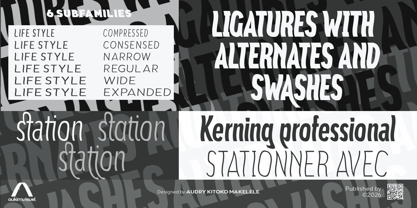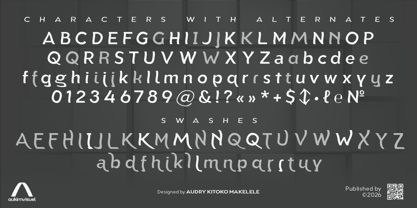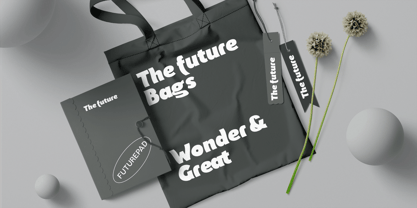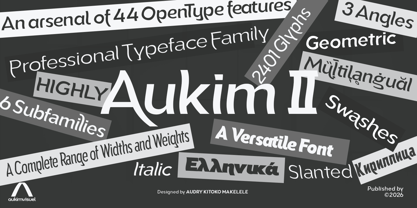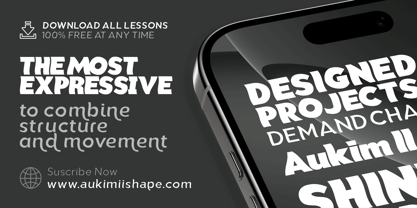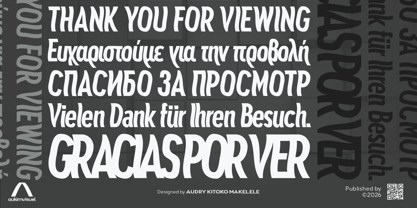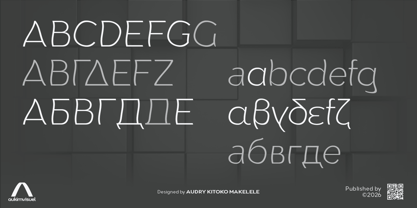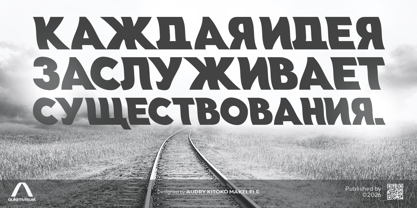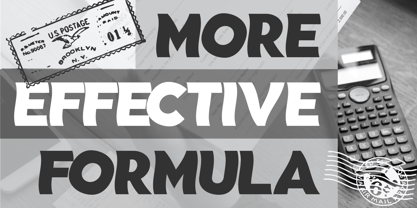
Aukim II Shape
by AukimVisuel
The Aukim II Shape Font Family was designed by Audry Makelele and published by AukimVisuel. Aukim II Shape contains 234 styles and family package options. More about this family
Aukim II Shape is the most expressive and kinetic variation of the Aukim II family. Designed for designers seeking a typeface capable of conveying movement, tension, and a strong visual presence, this version transforms the family’s stable geometry into a living form. Each letter appears to be captured in a moment of glide or momentum, giving the text a natural dynamism and a unique visual rhythm. The strength of Aukim II Shape lies in its ability to combine structure and movement. Its elongated curves, directional terminals, and open counters create a sense of controlled fluidity. Nothing is left to chance: the distortions are subtle, intentional, and designed to guide the eye and enhance typographic impact without ever compromising readability. Designed for projects that demand character, Aukim II Shape shines in headlines, cultural posters, contemporary visual identities, and interfaces where movement needs to be implied without resorting to animation. It adds a narrative dimension to words, transforming every composition into a visual experience. As part of the Aukim II font family, the Shape version pairs perfectly with the Regular, Rounded, and Display styles. Its ligatures, variants, and ornamental letters enhance the fluidity of the design and offer creatives a truly expressive playground. It thus becomes a powerful tool for enriching an artistic direction or asserting an identity. Aukim II Shape demonstrates a deep mastery of typographic design, rhythm, and professional kerning. It is a font that breathes, moves forward, and tells a story: a font that brings words to life.